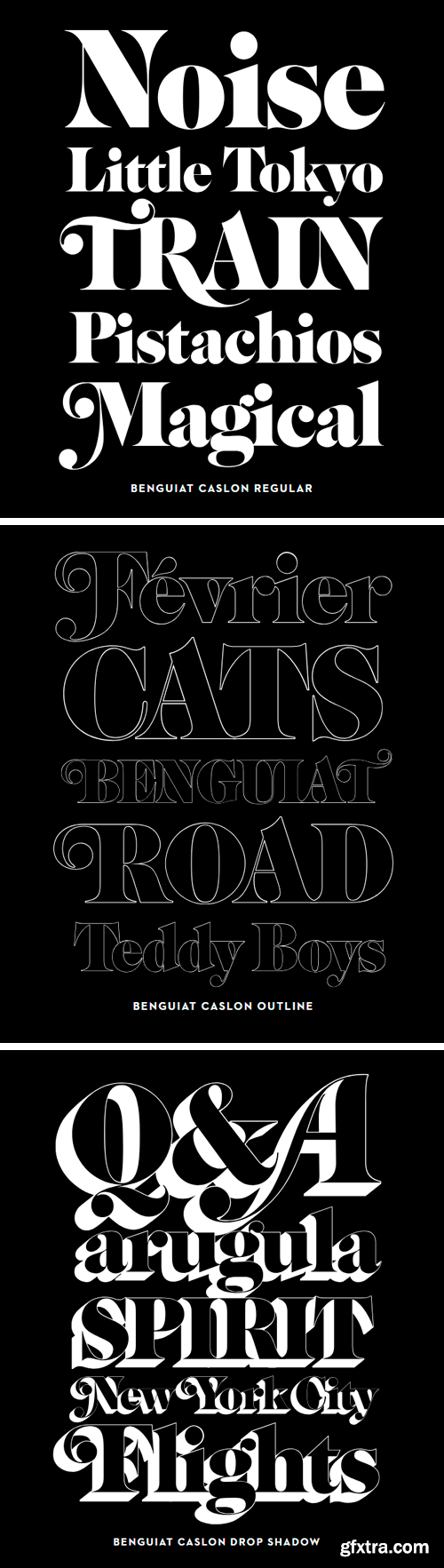
Benguiat Caslon Font Family
Designed to be set in big, large and huge sizes in classic TNT (tight-not-touching) style, Benguiat Caslon is dynamite for a wide range of display demands. We also included outline and drop-shadow versions as well as numerous swash caps, ligatures, contextual alternates and automatically-shifting punctuation.
Ed Benguiat originally designed this alphabet for the Photo-Lettering library during his tenure as the legendary type house’s art director. When we purchased Photo-Lettering in 2003, one of the first things we did was start picking some of our favorite films to digitize as fonts. Photo-Lettering partner Christian Schwartz chose this expressive serif specimen for its high contrast strokes that stand up to the most vigorous display typography demands without withering against pesky design limitations like screen resolution, ink spread and dot gain.